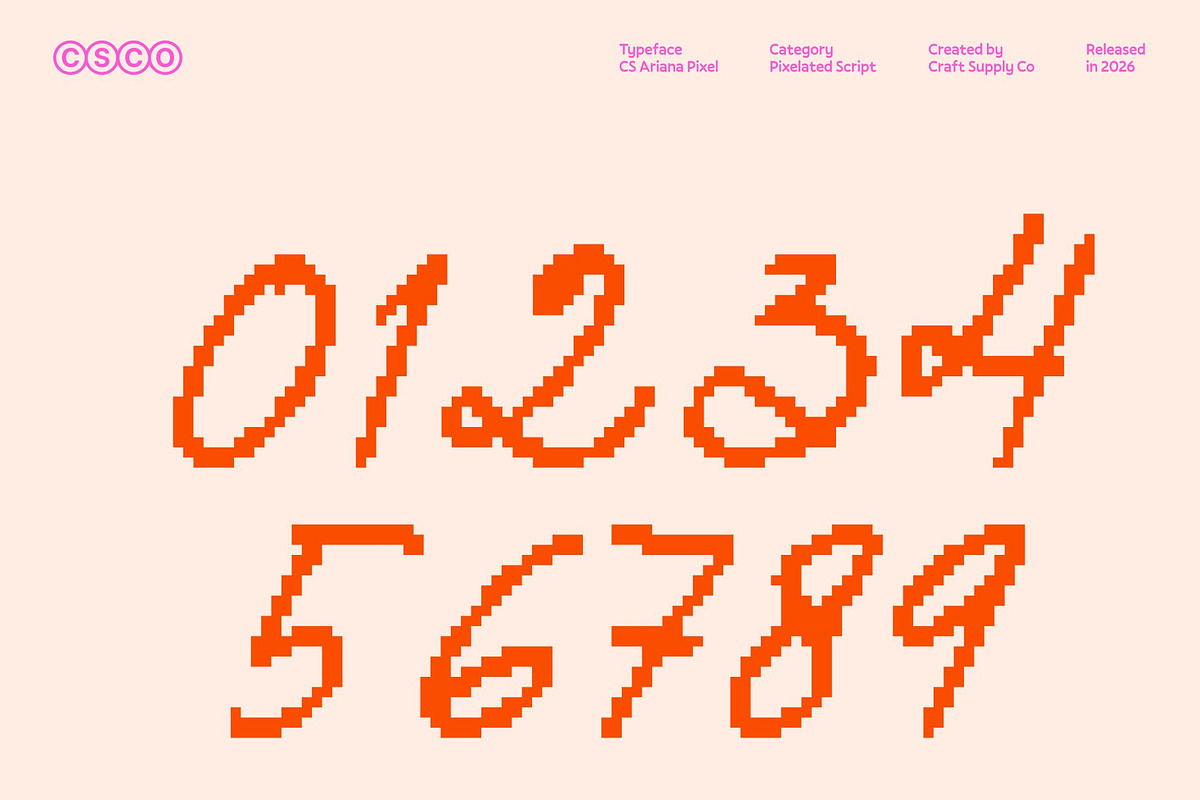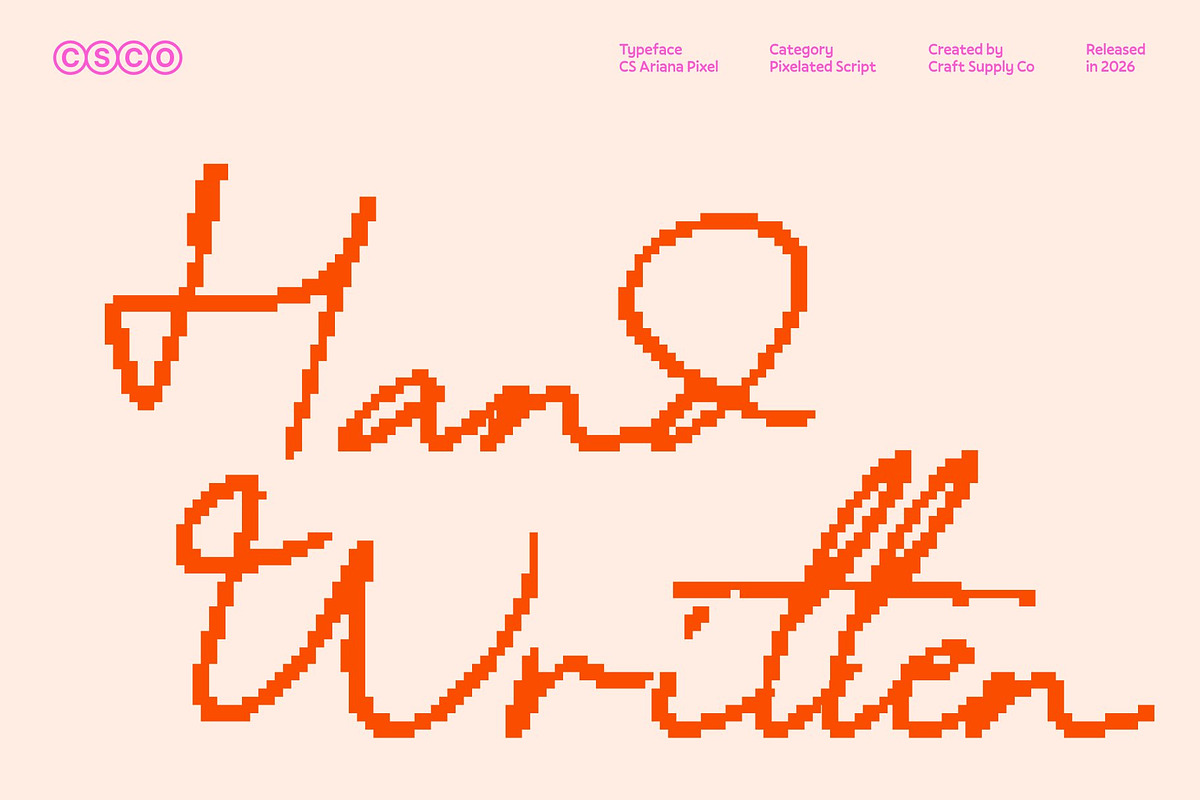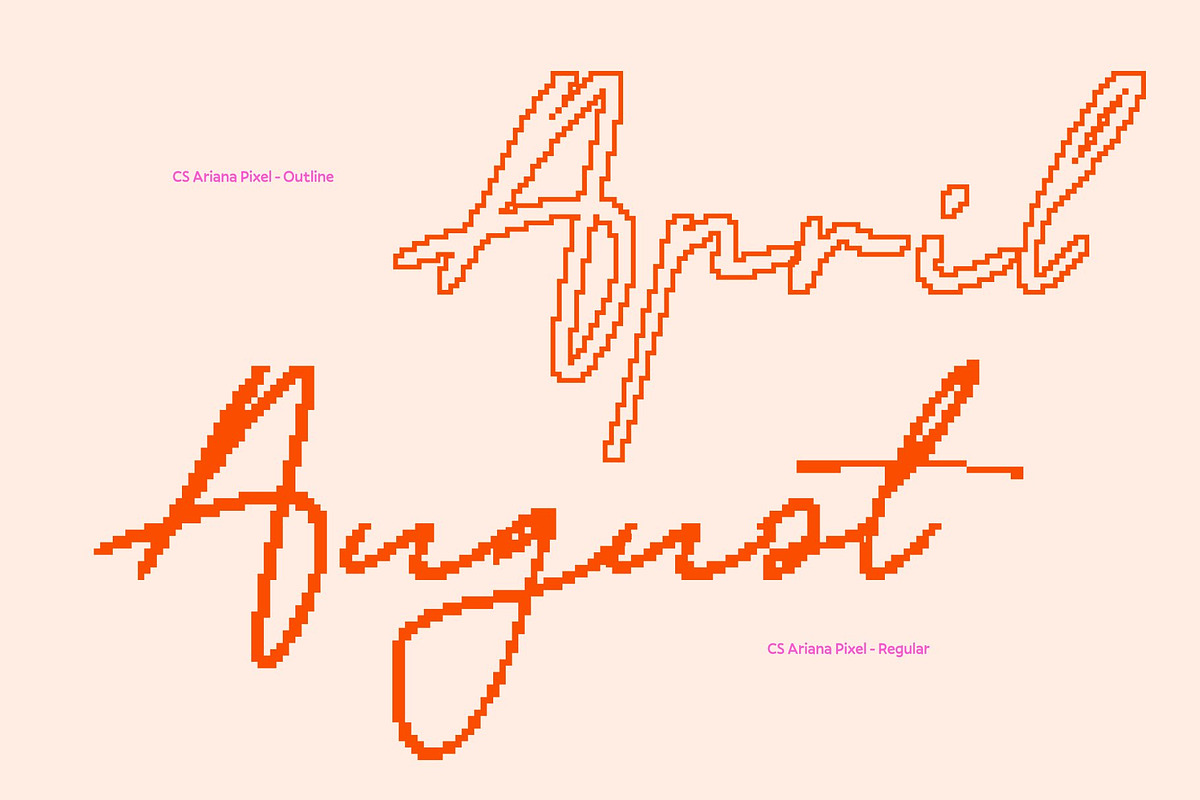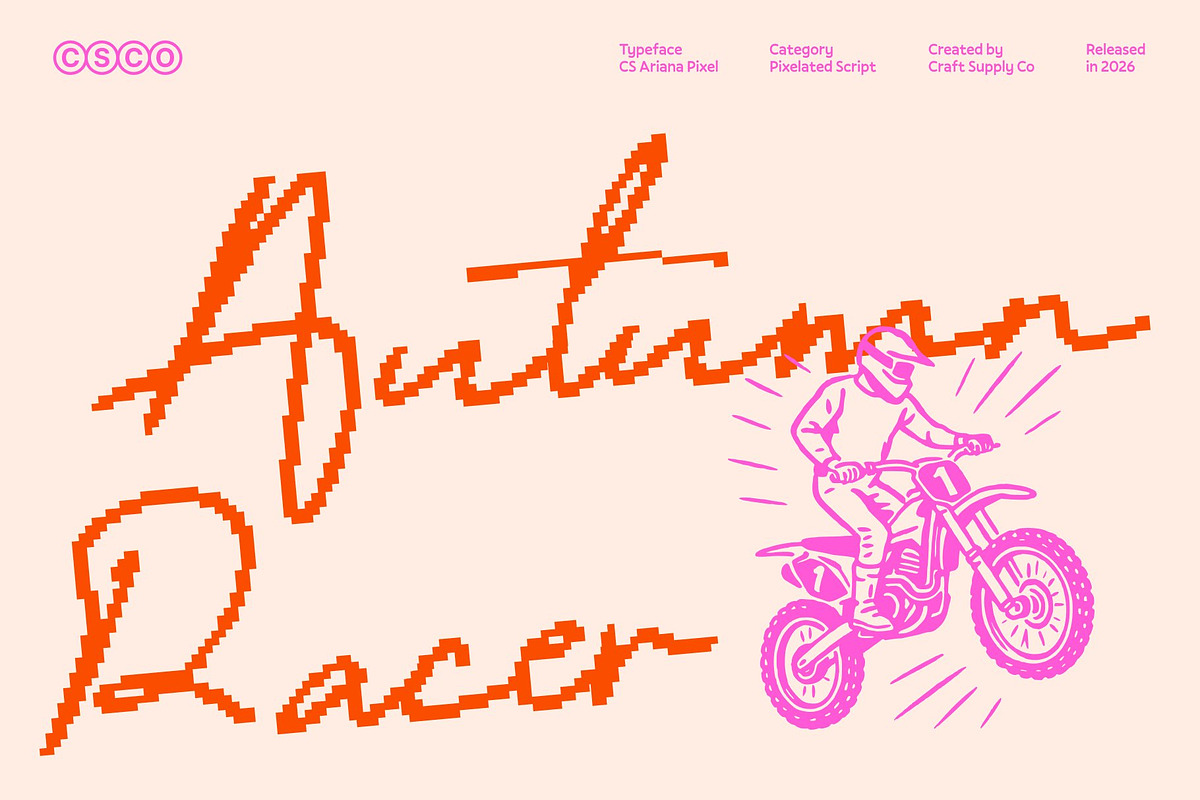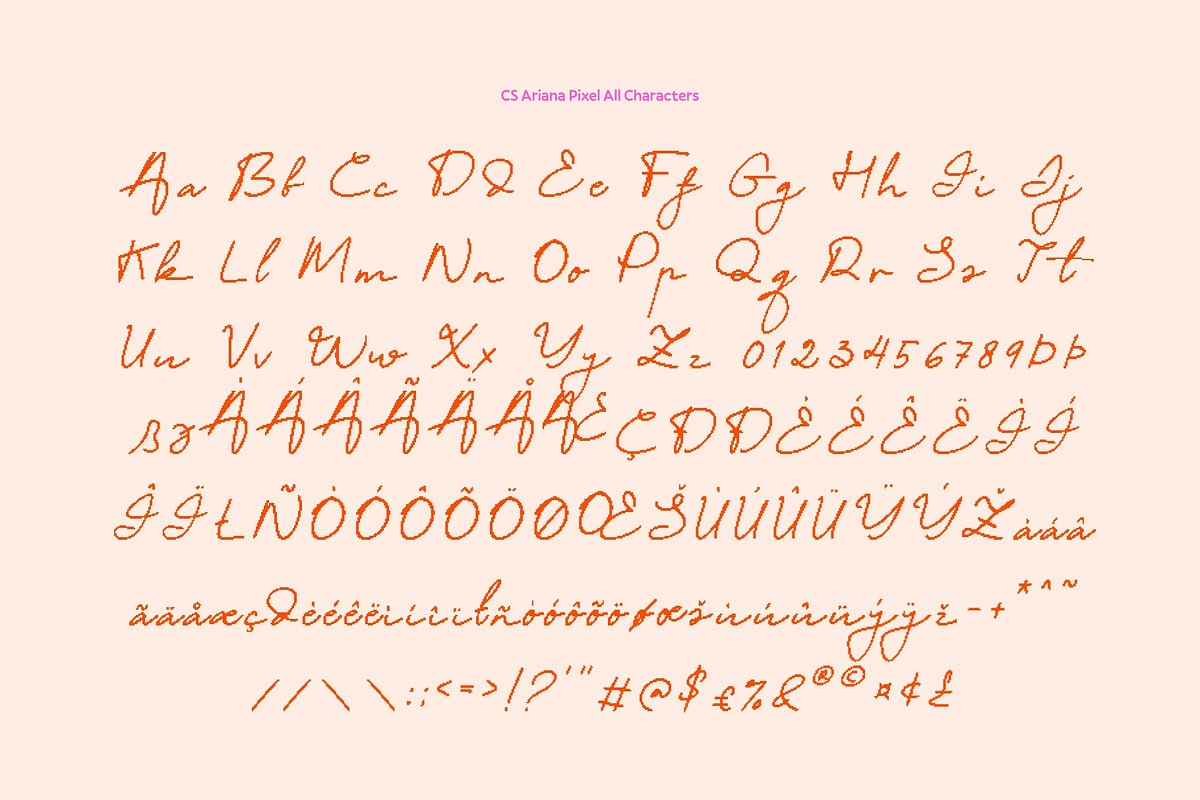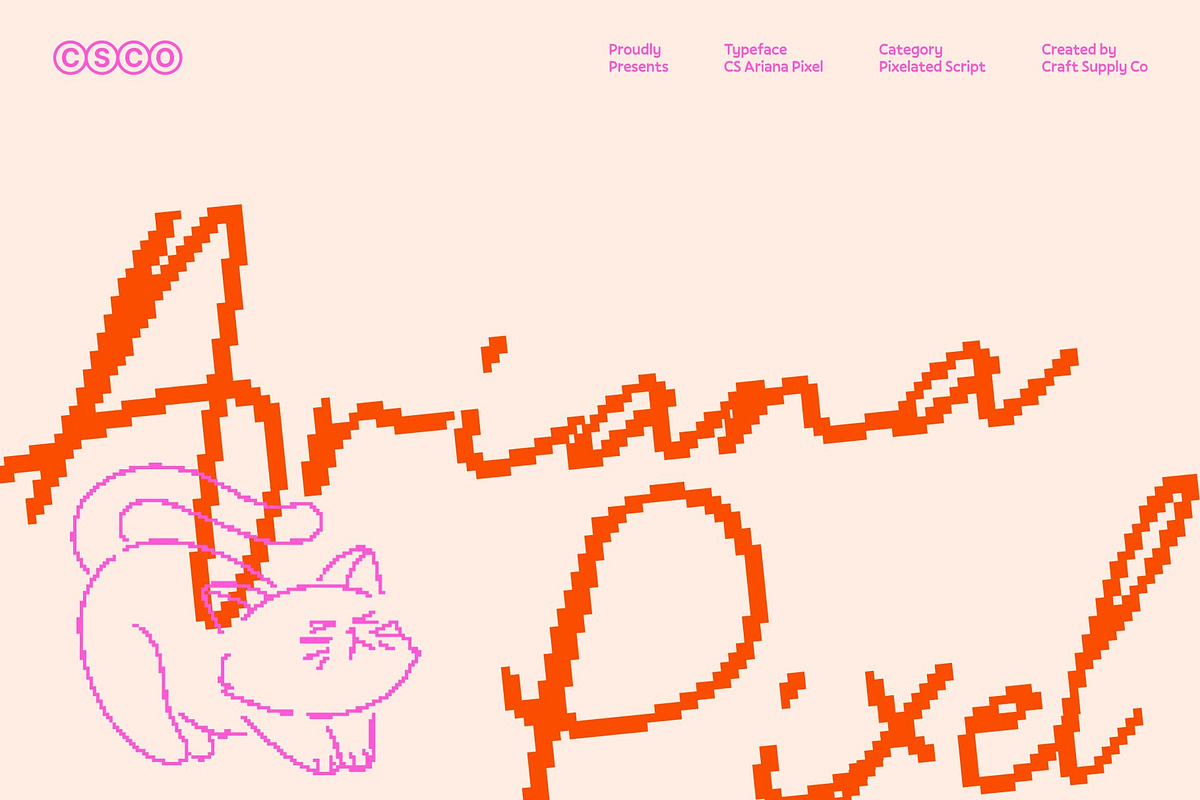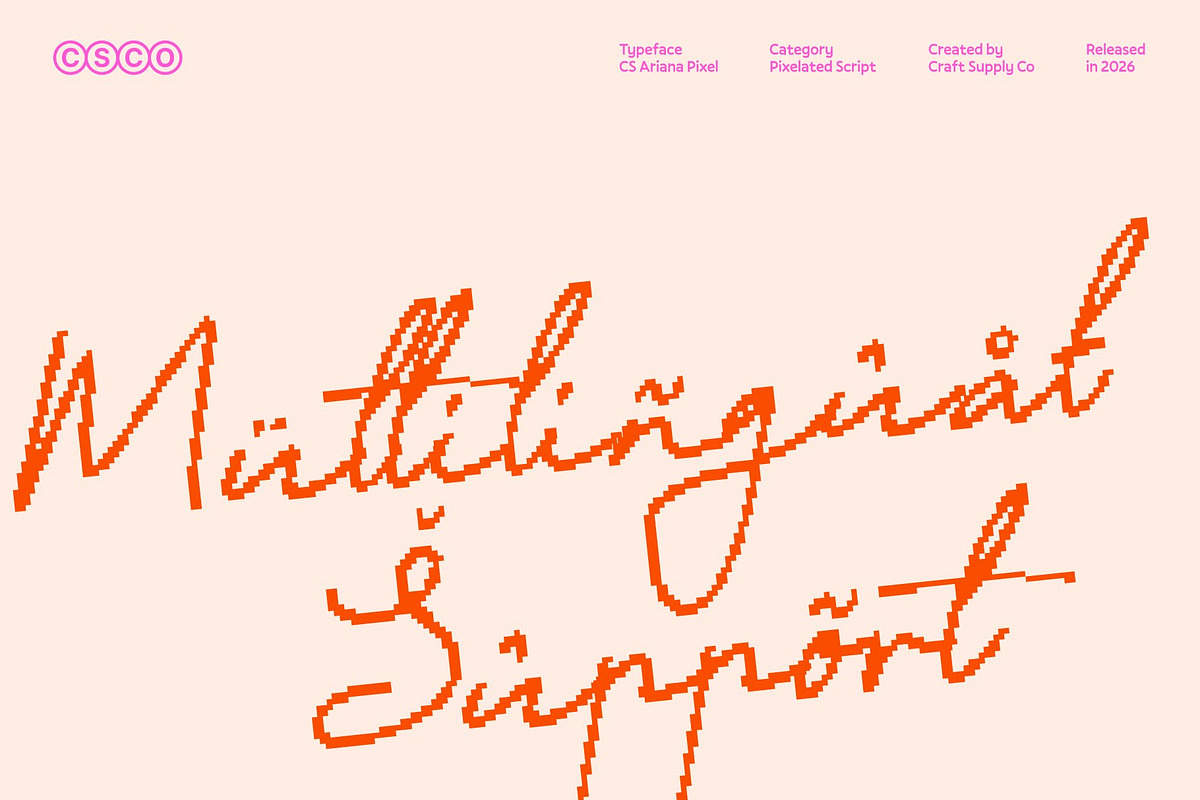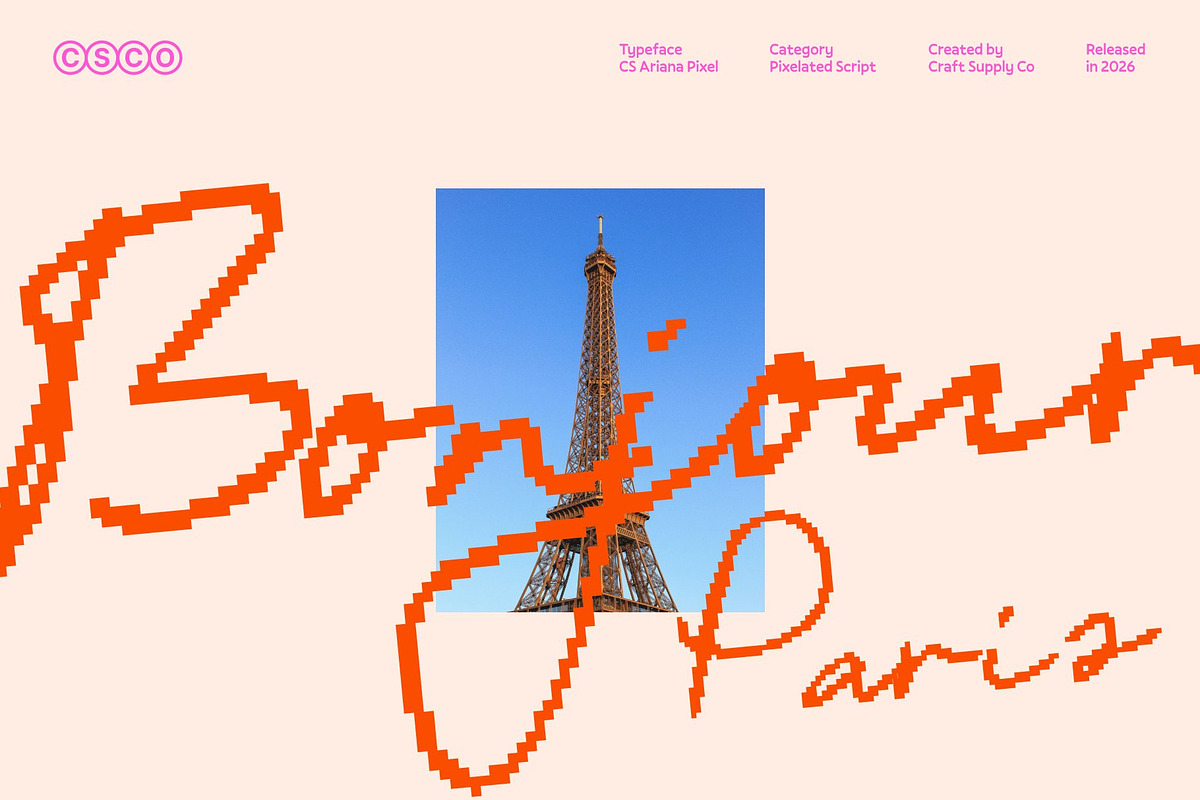
CS Ariana Pixel
CS Ariana Pixel – Romantic Elegance with Delicate 8-Bit Beauty
Romantic Script Reimagined in Pixel Style This is a romantic script font transformed into a charming pixel-based design that blends emotional elegance with nostalgic digital character. Inspired by classic handwritten romance, this pixel version preserves graceful movement while introducing an 8-bit structure that feels retro, digital, and visually distinctive.
Soft Pixel Curves with Refined Detail Despite its pixel form, this font retains a sense of gentle flow and delicacy. Each letter is carefully built from small digital units that mimic smooth curves and flowing connections. The balance between structured pixels and elegant script motion creates a refined look that feels romantic without losing clarity. This thoughtful design allows the font to feel emotional, warm, and visually balanced.
Delicate Digital Expression for Romantic Storytelling This font delivers a delicate presence ideal for romantic storytelling in digital and creative contexts. The pixel style adds a nostalgic, old-digital charm that enhances emotional depth, making designs feel intimate yet visually unique. It brings a poetic tone that works beautifully for expressive headlines, decorative accents, and creative narratives with a retro-modern twist.
Perfect for Weddings, Book Covers, and Retro-Inspired Designs This font is ideal for wedding invitations, book covers, lifestyle branding, romantic posters, and creative digital visuals. This font is especially suited for projects that combine love, elegance, and retro aesthetics offering a graceful script voice wrapped in charming 8-bit nostalgia.